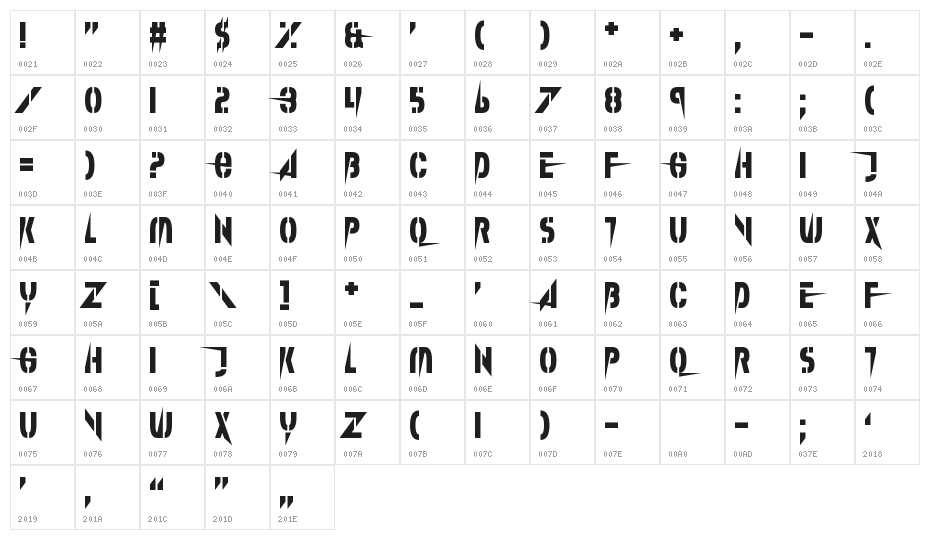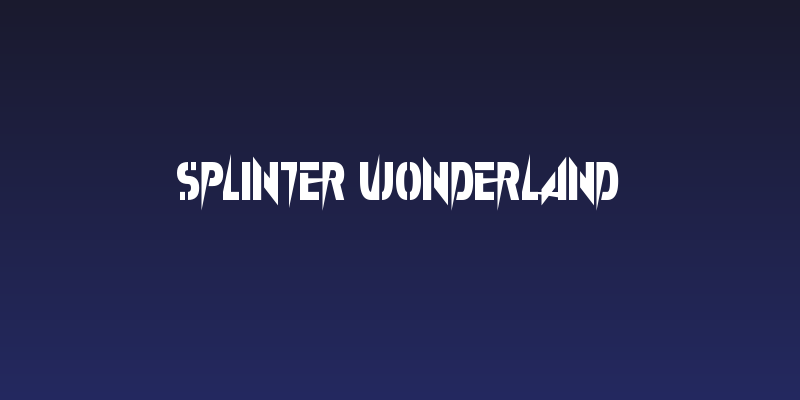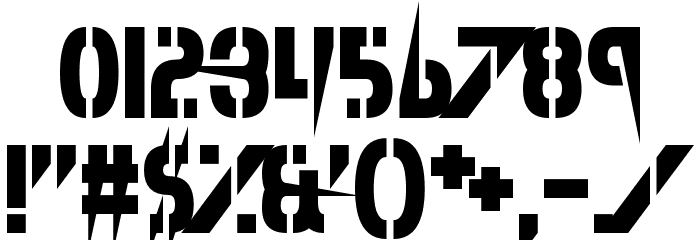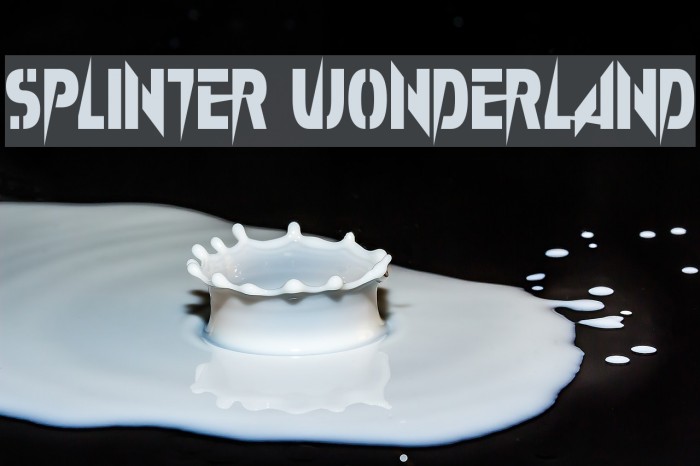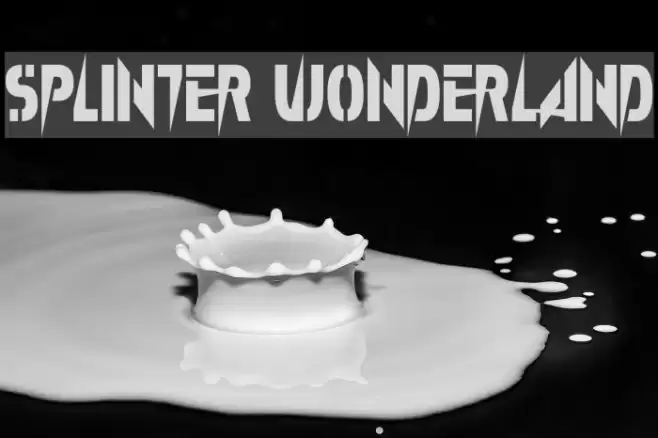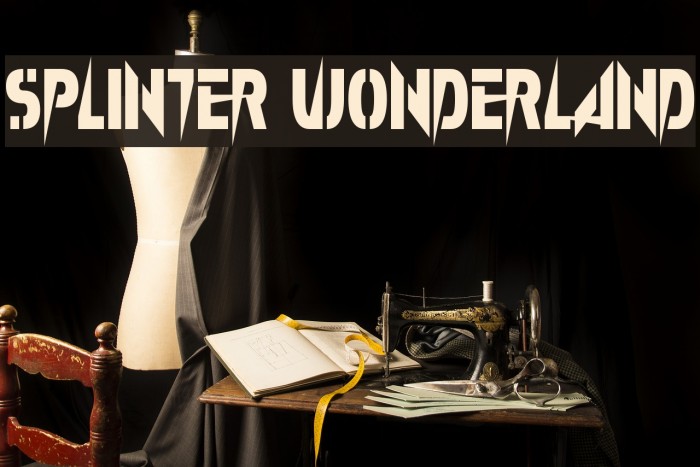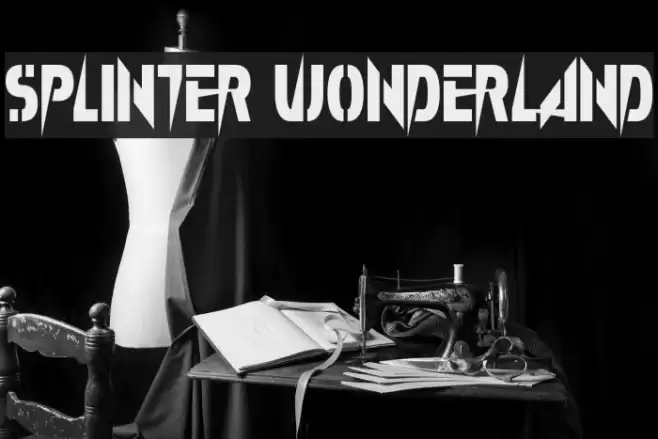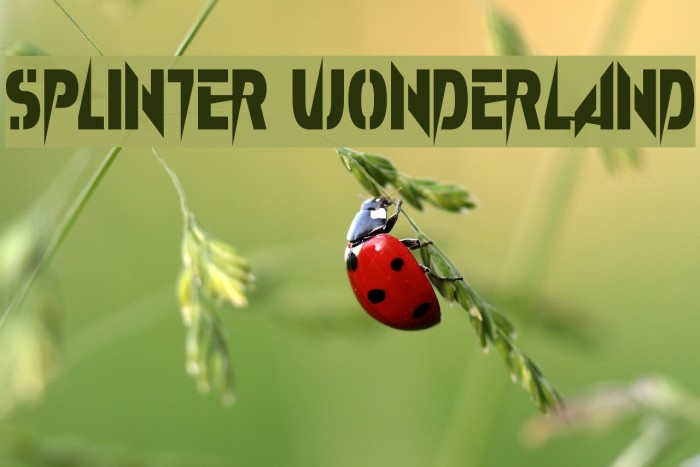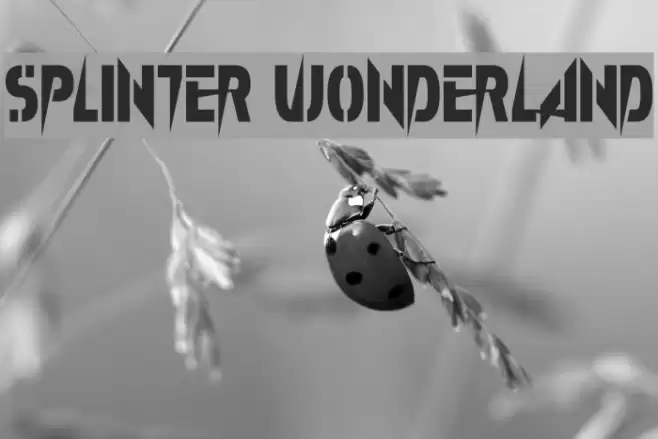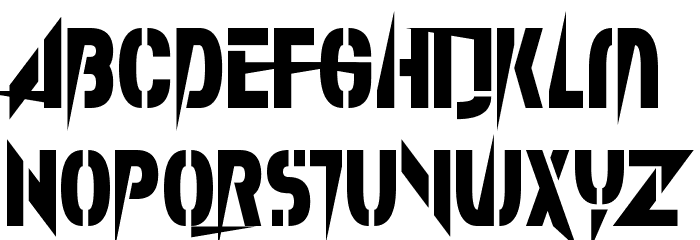
Splinter Wonderland Font
| Gesamtstil | Modern, Avant-garde |
| Anwendungsfall | Headlines, Logos, Artistic projects |
| Vorgeschlagene Projekte | Ideal for album covers, posters, branding for edgy or modern products, and artistic projects requiring a bold statement. |